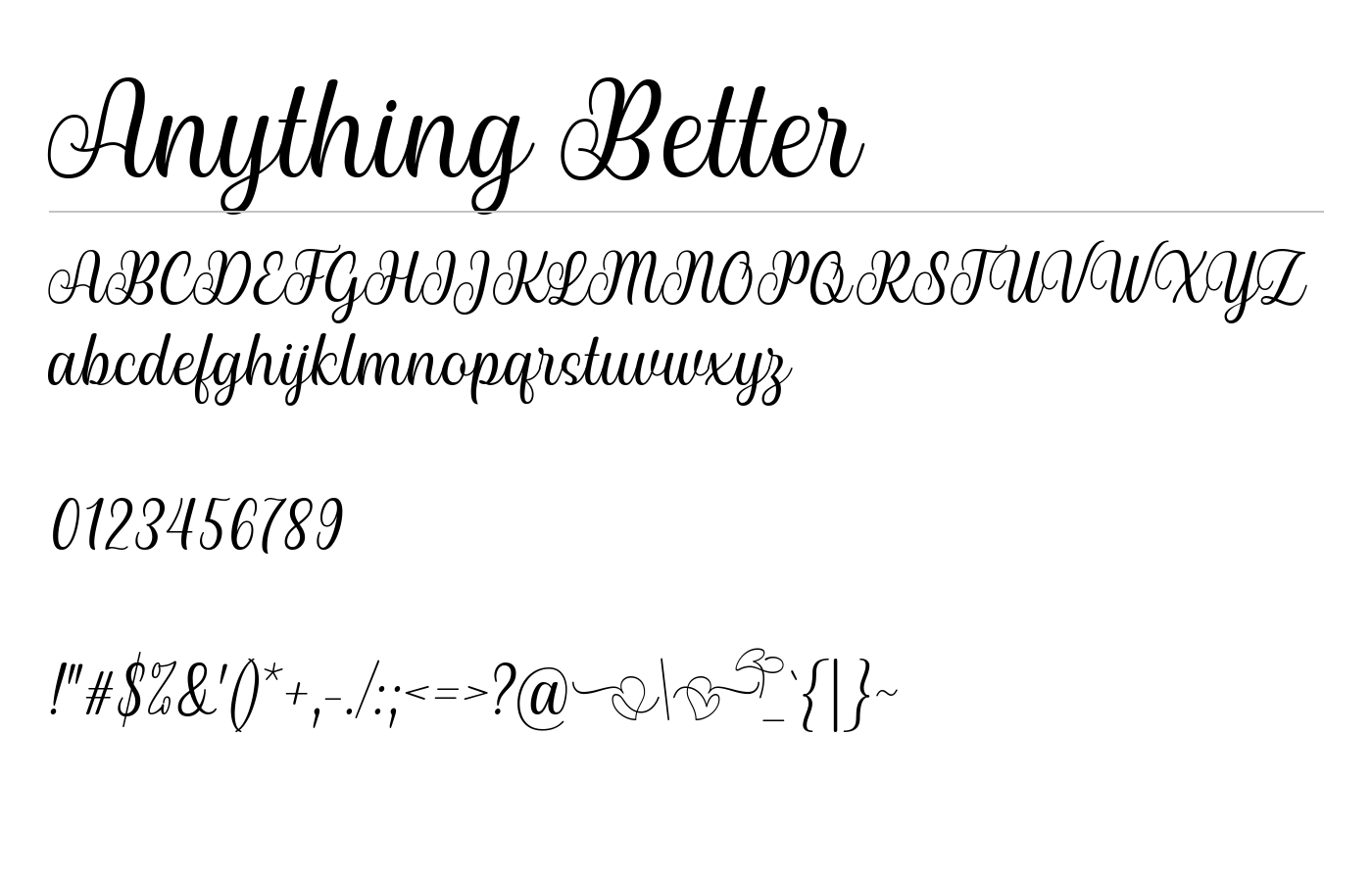
Anything Better is an elegant script font with a smooth, flowing style and graceful curves that give it a refined, romantic feel. Its slender weight, high contrast in stroke thickness, and decorative swashes make it ideal for luxury branding, wedding invitations, and sophisticated editorial designs where a delicate and stylish touch is desired. This font works best in headlines and logos, adding a charming, artistic flair while maintaining readability.
Anything Better Font
About Anything Better Font